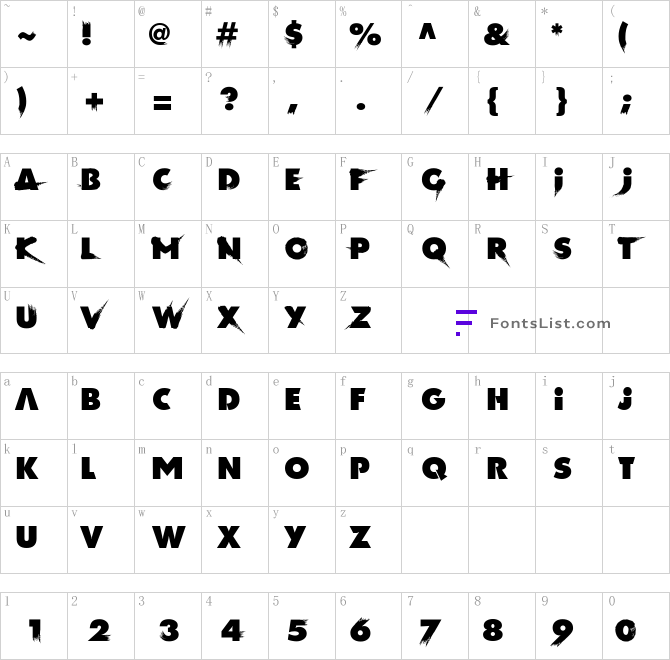
- Font Name:Akira
Akira-Regular.ttf is a very beautiful artistic font, Akira-Regular.ttf is widely used in the design and printing of various books and pictures,Akira-Regular.ttf has a strong visual impact,Akira-Regular.ttf is a commonly used font in newspapers, magazines and books, and is used in posters, e-commerce Poster design, store design, logo design, font design and other fields.Akira-Regular.